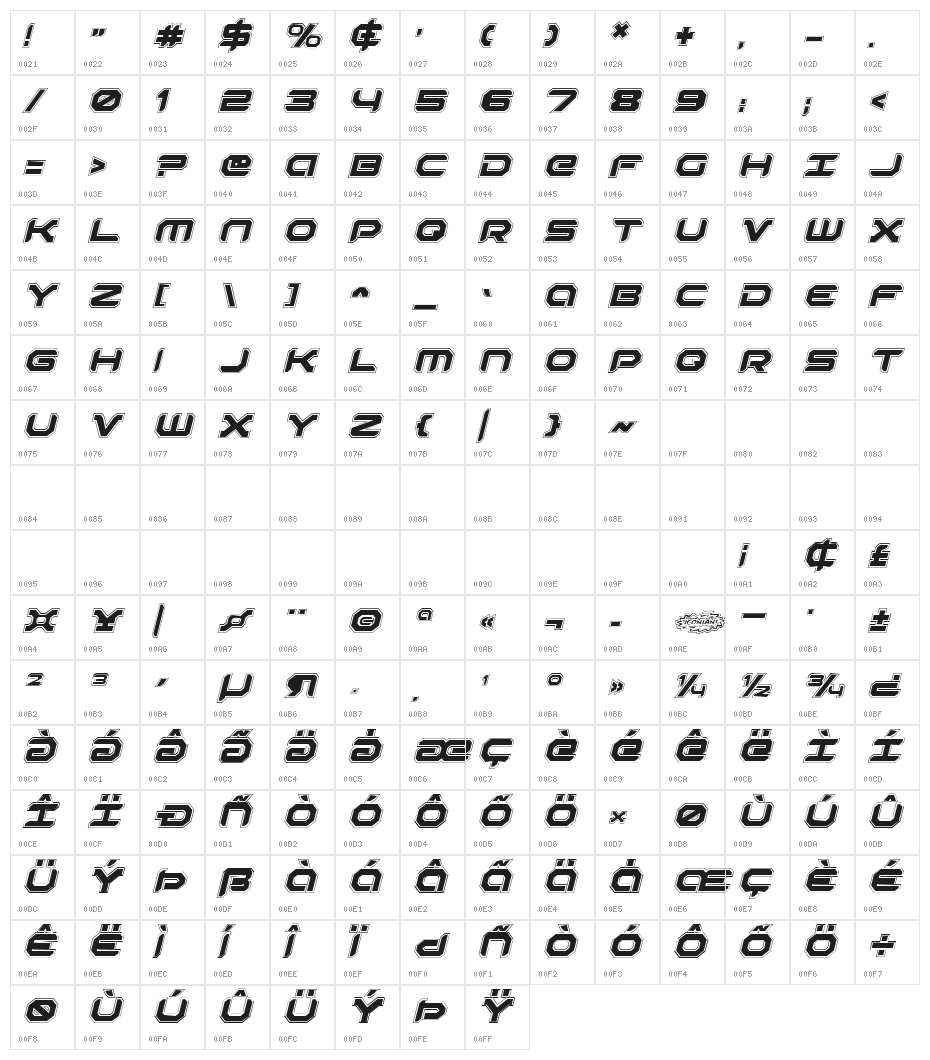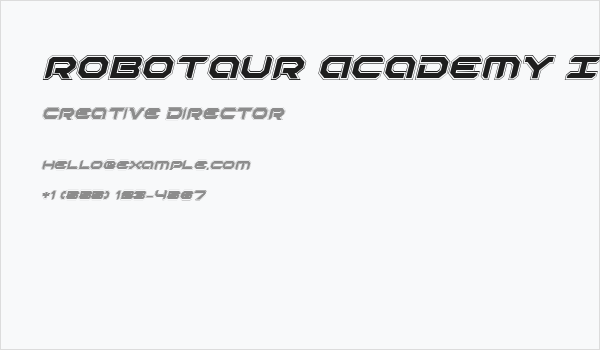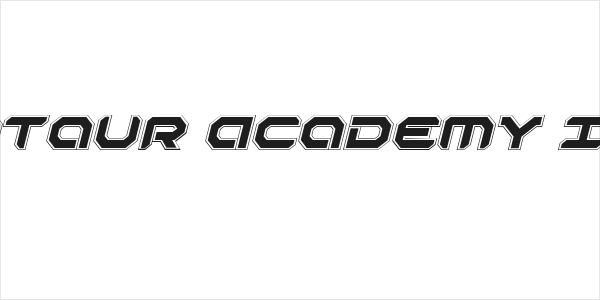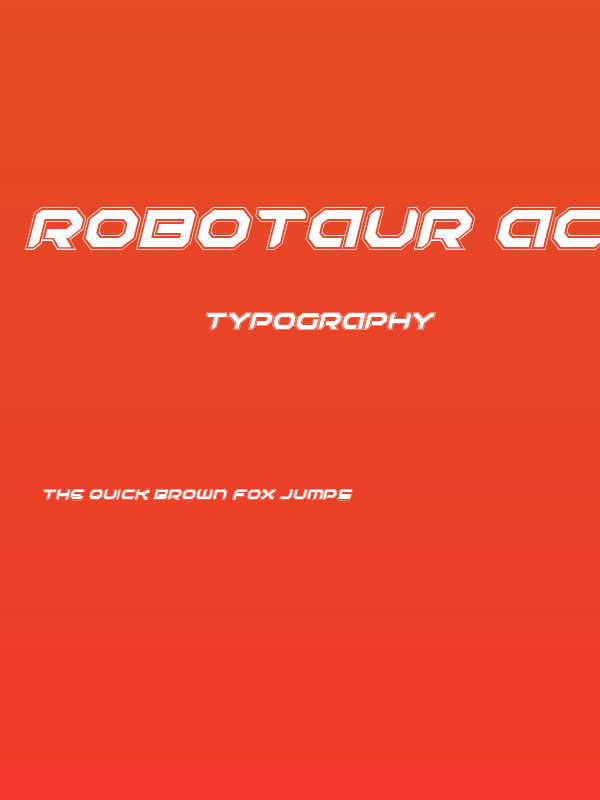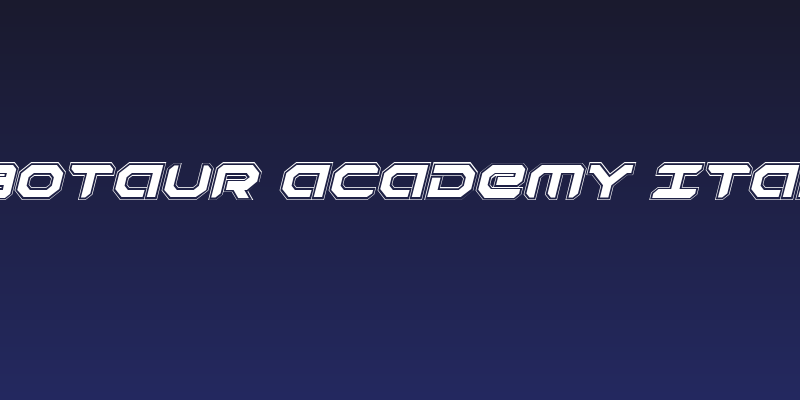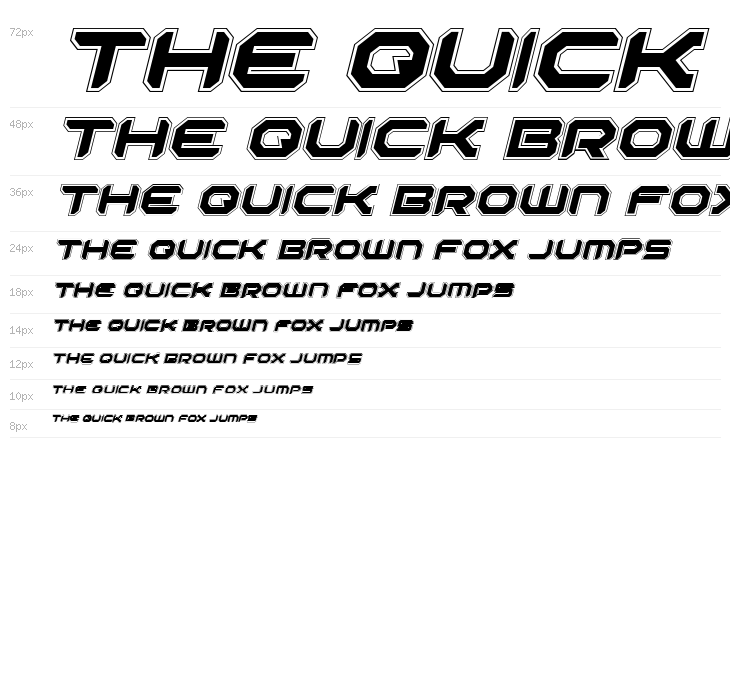
Robotaur Academy Italic Font
Robotaur Academy Italic Description
This font features a futuristic and angular design with a distinct italic slant, giving it a dynamic and forward-moving appearance. The characters are outlined with a bold, black border, enhancing their visibility and impact. The geometric shapes and sharp edges contribute to a modern and technological feel, making it suitable for projects that require a cutting-edge aesthetic. The font maintains consistent spacing and alignment, ensuring readability while preserving its unique style.
| Proposed Projects | Ideal for technology branding, sci-fi themed designs, video game titles, and modern advertising campaigns. |